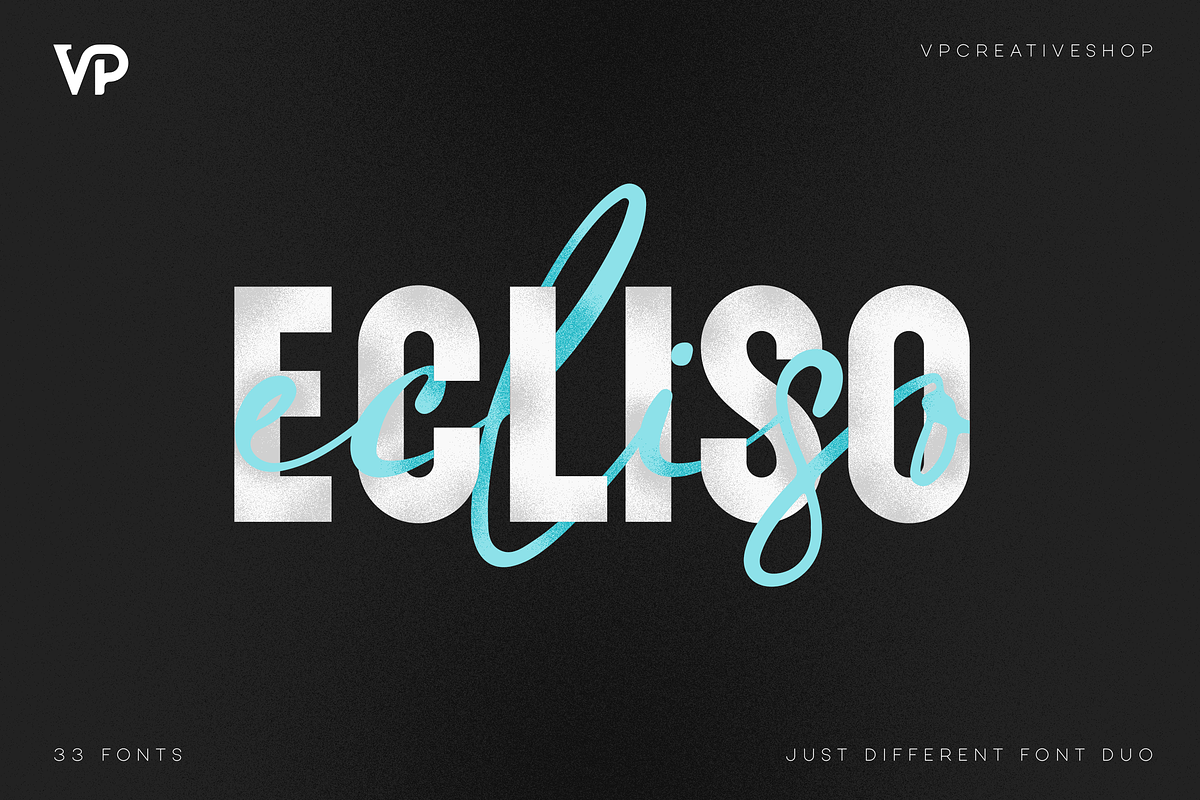
Ecliso - Sans and Script Fonts Free Download is a versatile font duo that combines the clean, modern lines of a sans-serif with the elegant flair of a handwritten script. Perfect for branding, social media, invitations, logos, posters, and more, Ecliso gives you the flexibility to create dynamic designs with a unique blend of styles.
The sans-serif font brings clarity and sophistication, while the script font adds a touch of warmth and personality. Together, they make your designs stand out while maintaining a harmonious balance. Ecliso includes uppercase and lowercase letters, punctuation, multilingual support, and is compatible with both Mac and Windows systems.